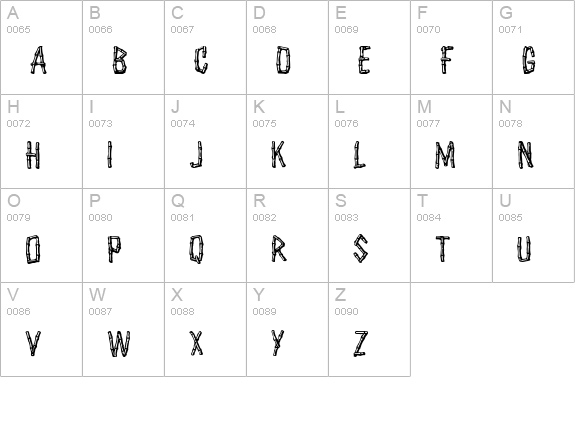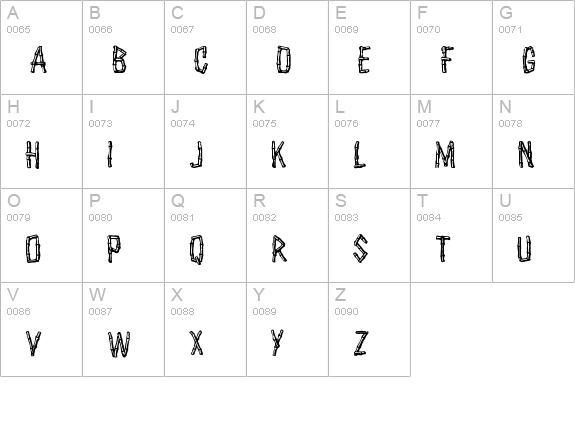
Castaway Font Details
Castaway font is a versatile and stylish typeface that exudes a sense of adventure and exploration. With its unique blend of rugged edges and smooth curves, this font is perfect for projects that require a touch of wanderlust and creativity. Whether you're designing a logo, a poster, or a website, Castaway font will bring a sense of freedom and individuality to your work. Best of all, Castaway font is available for free download at FontsMarket.com. This means you can easily access this stunning font and use it in your design projects without any cost. Don't miss out on the opportunity to add Castaway font to your font collection and elevate your designs with its distinctive charm and character. Download it today and let your creativity set sail with Castaway font.